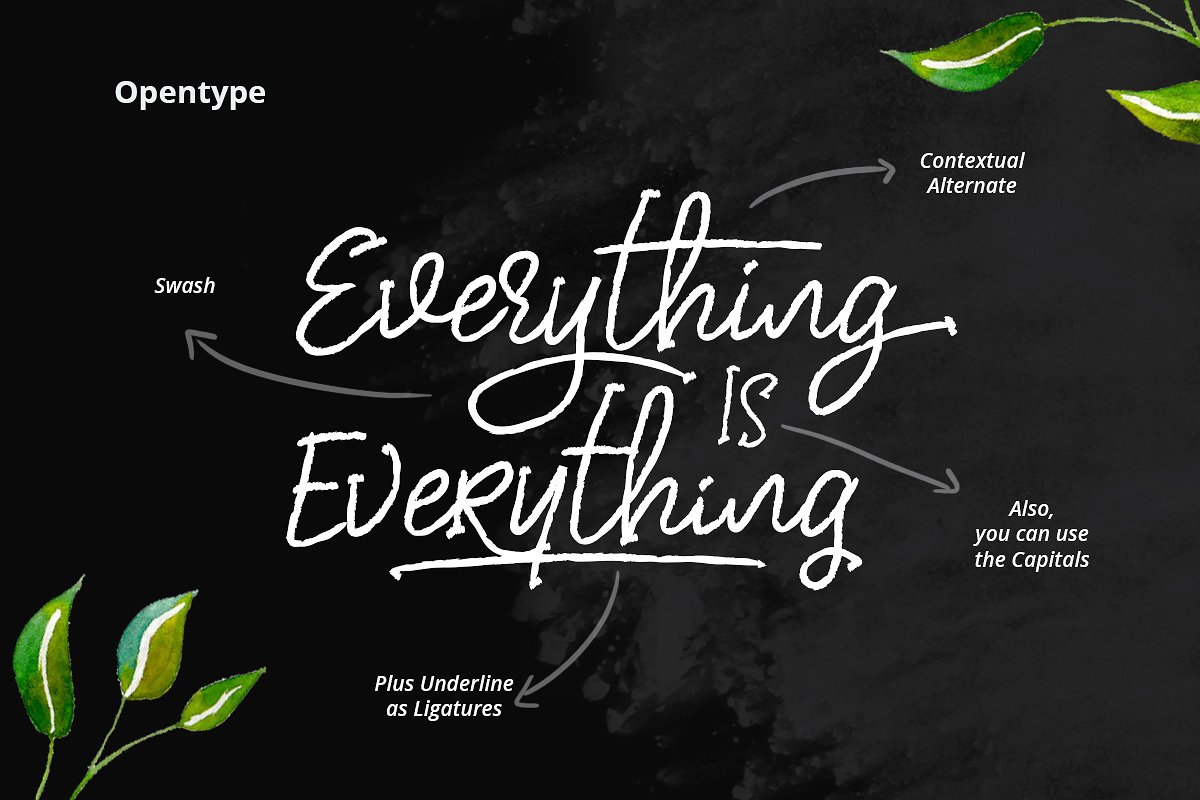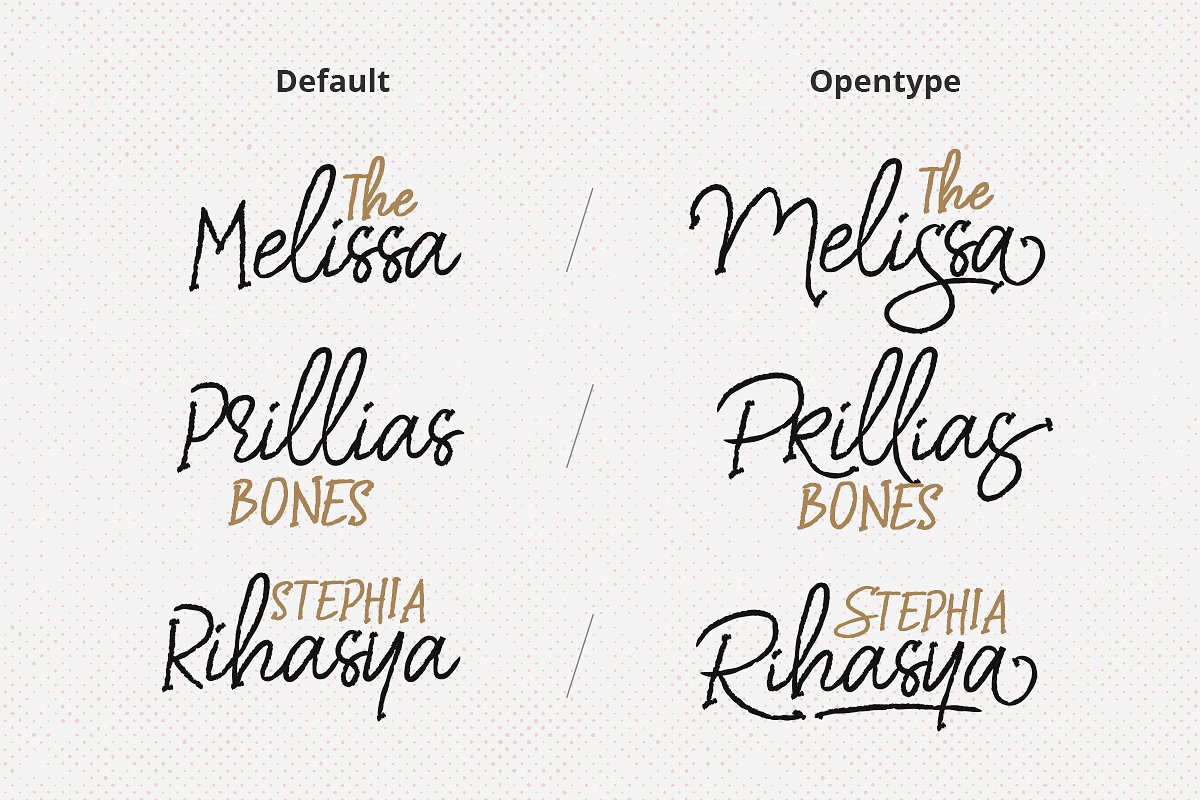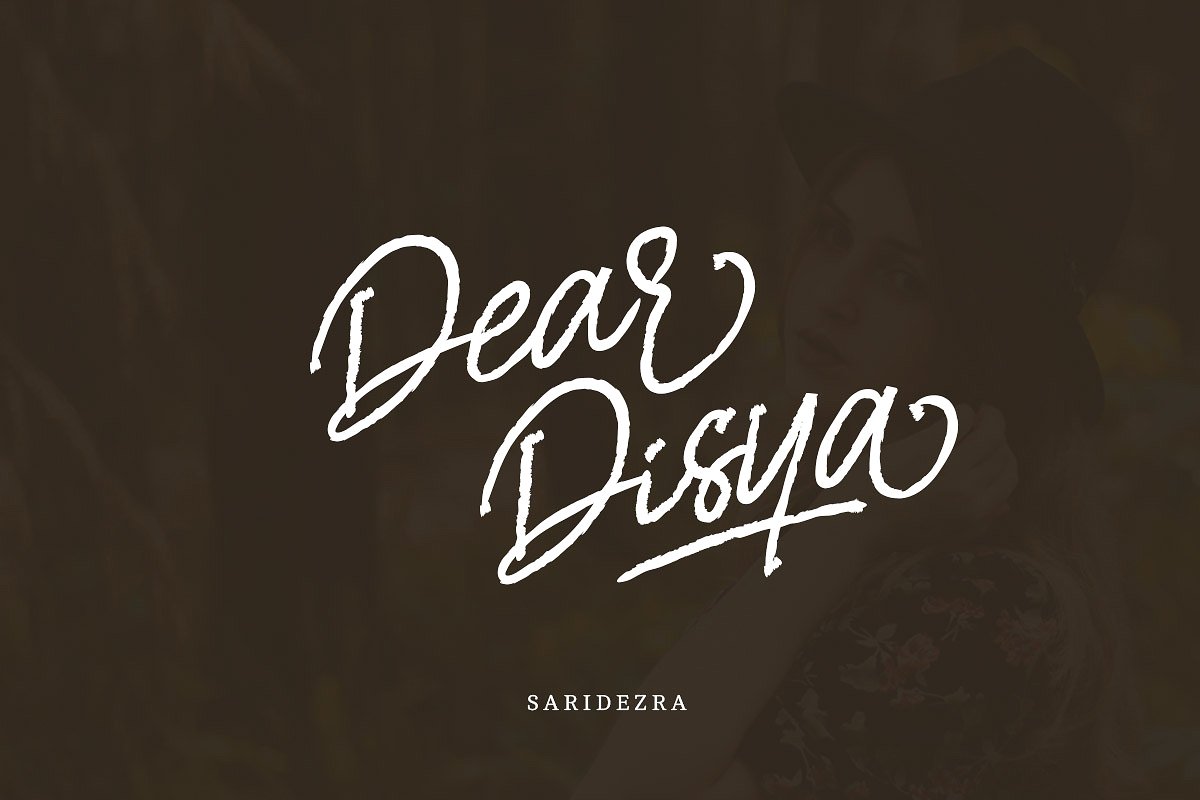
Dear Disya Script
Dear Disya Script Font
Dear Disya is handwritten font that contain ligatures, stylistic alternate, swash, etc to create your own customized handwriting. This font is also support multi language. This font available in OTF and TTF. And of course, made with heart.